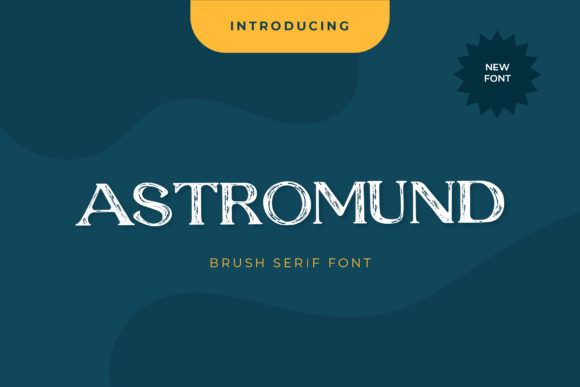
Prepare yourself to be captivated by Astromund Font, the epitome of elegance and sophistication in the world of typography. This display font is a masterpiece crafted by uicreativenet, meticulously designed to leave an indelible impression on your creative endeavors. Astromund's distinctive style exudes a cool and contemporary aura, making it an ideal choice for those seeking to make a statement with their designs.
With Astromund Font gracing your projects, experience the transformative power of typography. Its bold and confident strokes command attention, while its inherent charm adds a touch of allure that is impossible to resist. Unleash your creativity and let Astromund Font elevate your designs to new heights. It is the perfect font for fashion branding, where style and individuality reign supreme. Its striking presence will leave a lasting impact on your audience, ensuring that your brand stands out from the crowd.
Astromund Font's versatility extends beyond the realm of fashion. Its adaptability shines in editorial designs, where its ability to convey emotions and ideas with remarkable clarity takes center stage. Whether you seek to create captivating headlines, alluring body text, or captivating quotes, Astromund Font delivers an unparalleled level of eloquence that will leave your readers spellbound.
But Astromund Font's allure is not limited to its aesthetic appeal. It is a font engineered for functionality, ensuring seamless integration into your workflow. Its crisp and well-defined characters render beautifully across various platforms and devices, guaranteeing a consistent and visually stunning experience for your audience.
Join the ranks of discerning designers who have embraced Astromund Font as their weapon of choice. Witness the transformation as your creative visions take shape, imbued with the power and grace of this remarkable font.
Astromund Font beckons you to embark on a typographic adventure like no other. Let its bold strokes ignite your imagination and guide you toward design excellence. Seize this opportunity to own Astromund Font and unlock the gateway to a world of creative possibilities. The time is now to elevate your designs to new heights.